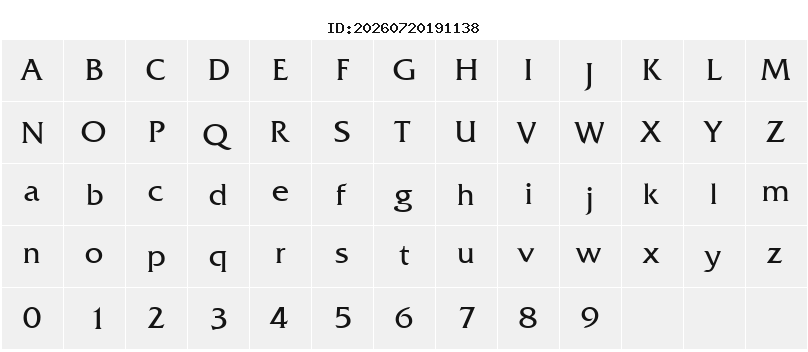
France.ttf is a modern, elegant sans-serif font designed for ultimate readability and visual harmony. Perfect for branding, headlines, web design, and print materials.